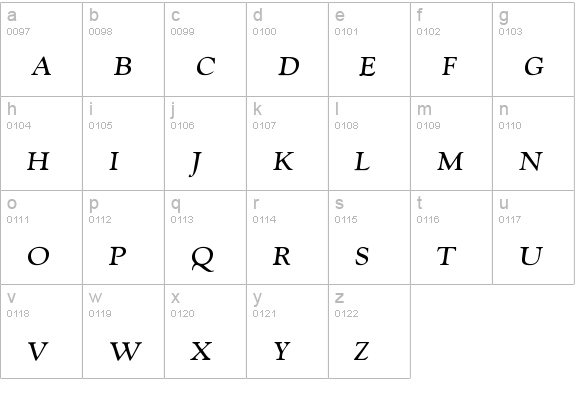
GoudyOldstyleH-SC-Italic is a distinctive, italic variant in the GoudyOldstyleH typeface family \xE2\x80\x94 well suited to design and typography projects.
Goudy Oldstyle H-SC Italic font exudes elegance and sophistication with its classic design and graceful italics. This timeless typeface boasts a sense of tradition and refinement, making it perfect for projects that require a touch of sophistication. The italicized characters add a sense of flair and style, making this font a versatile choice for various design applications. Best of all, Goudy Oldstyle H-SC Italic font is available for free download at FontsMarket.com. Whether you're working on a professional project or a personal creative endeavor, this font is sure to elevate your design and make a lasting impression. Embrace the timeless beauty of Goudy Oldstyle H-SC Italic font and add a touch of elegance to your next project.